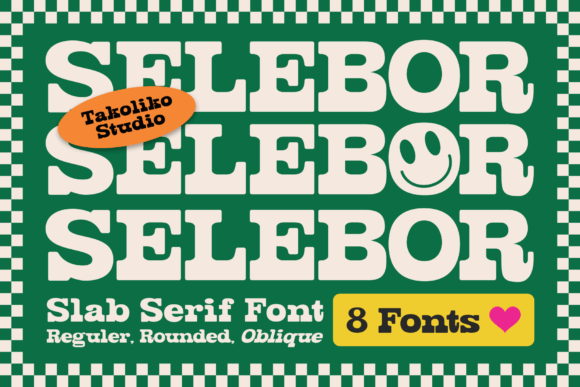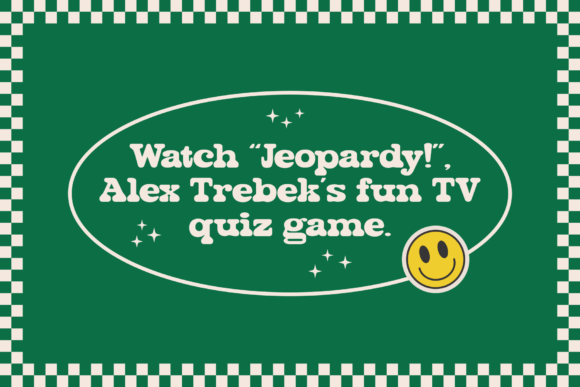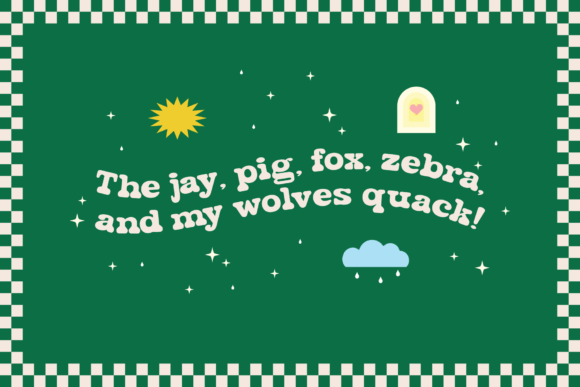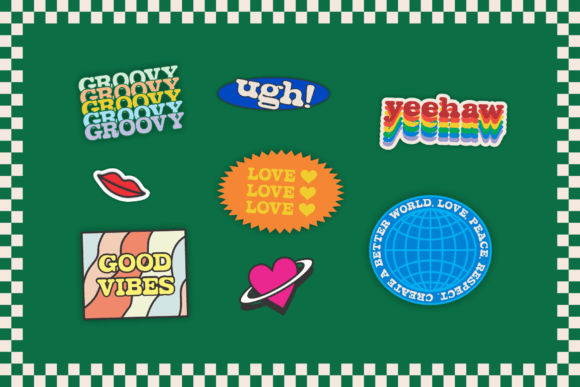
Selebor Font
Selebor is a slab serif font inspired by the 80s and 90s vibes. The font is perfect for projects that need a retro but not old feeling.It is perfect for designing stickers, t-shirts, food logos, and designs that need a vintage cartoon vibe. Selebor can be used as fun or formal kind of project. It can easily be matched to your projects and is good for communicating your brand.